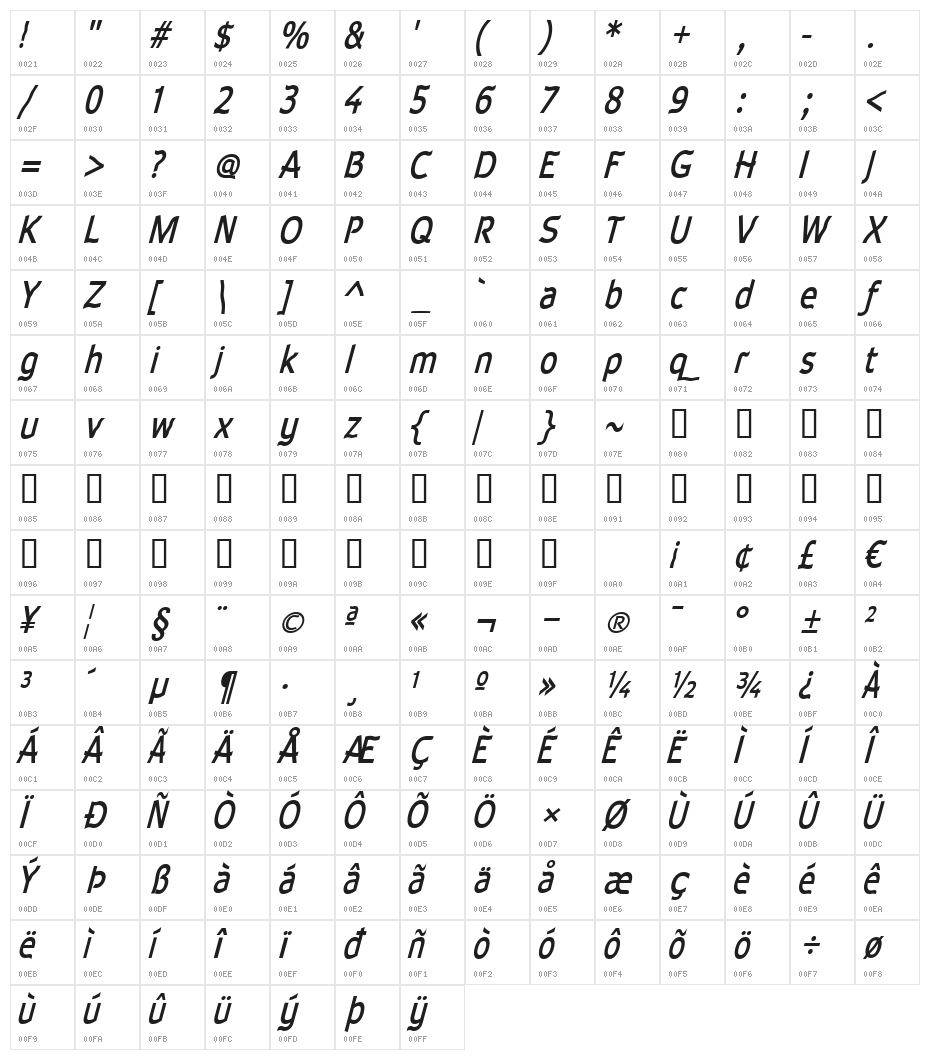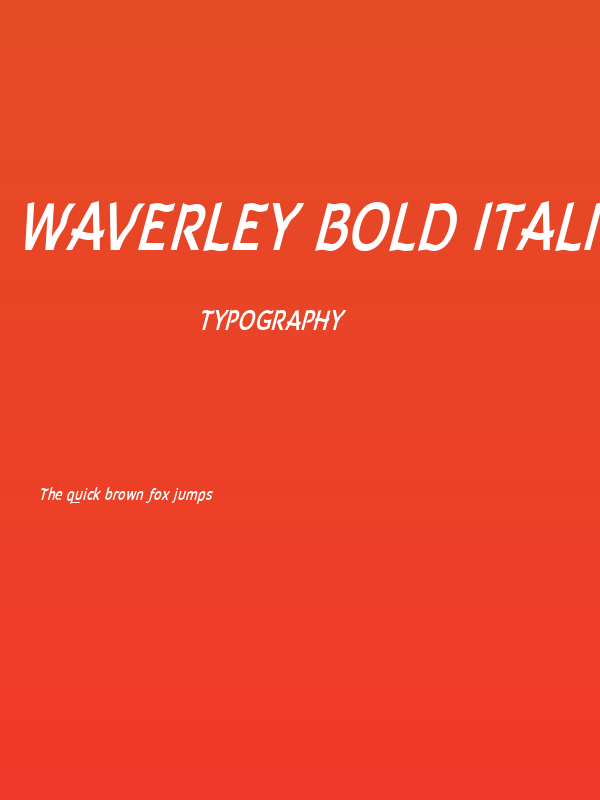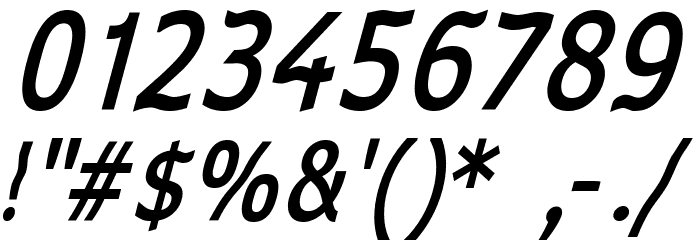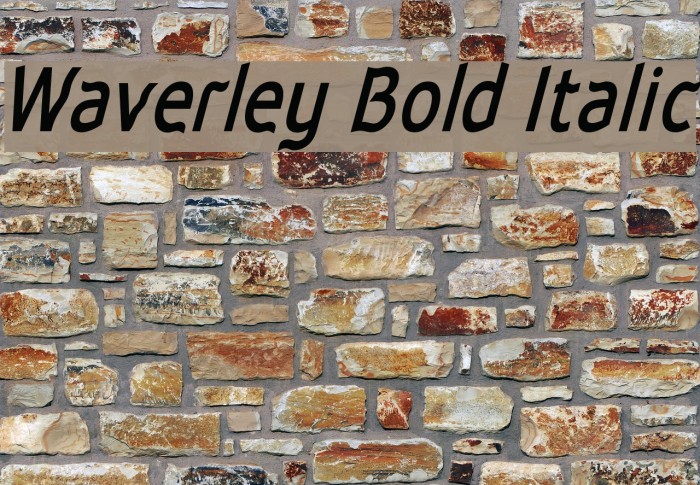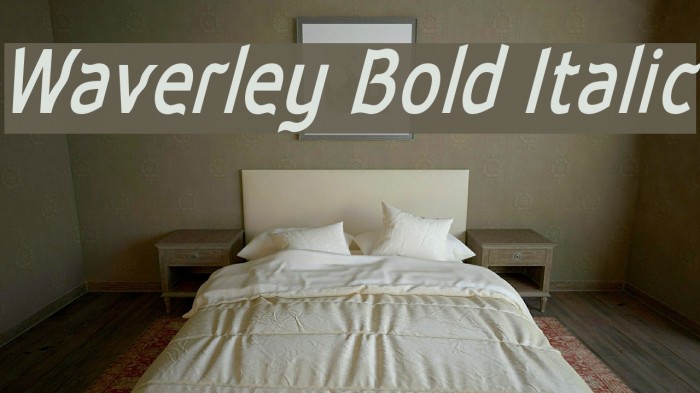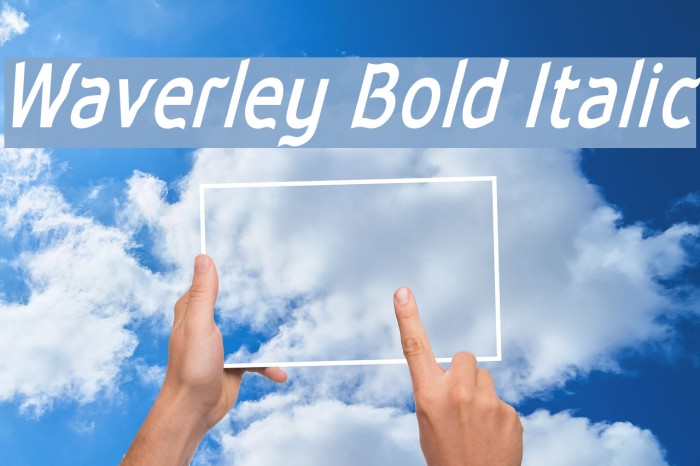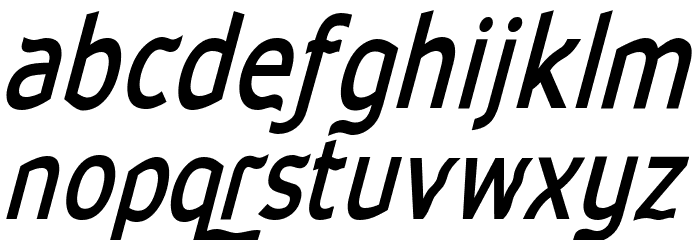
Waverley Bold Italic Font
Waverley Bold Italic Description
This font features a dynamic and energetic style, characterized by its bold and italicized form. The letters are slightly slanted, giving a sense of movement and fluidity. The strokes are thick and consistent, providing a strong visual impact. The uppercase letters are tall and commanding, while the lowercase letters maintain a balanced and harmonious appearance. The numerals are clear and distinct, ensuring readability. Special characters are well-integrated, matching the overall aesthetic of the font. This font is ideal for making a statement, with its bold presence and italic flair.
| Use Case | Headlines, Logos, Branding |
| Proposed Projects | Ideal for branding, advertising, headlines, and any project requiring a bold, attention-grabbing typeface. |